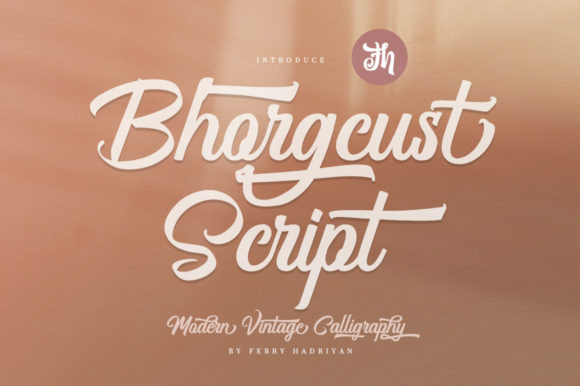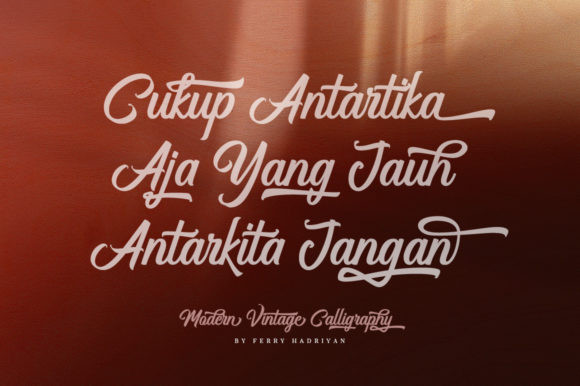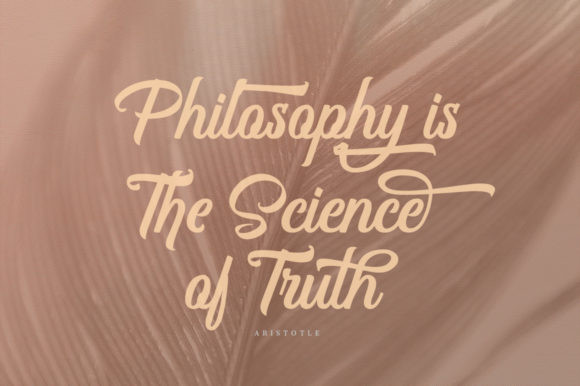
Bhorgcust Font
Bhorgcust is a gorgeous and bold handwritten font, crafted to give your headlines and logotype projects a stylish touch. This font reads as strong, confident, and dynamic and can add tons of nostalgic character to your designs.